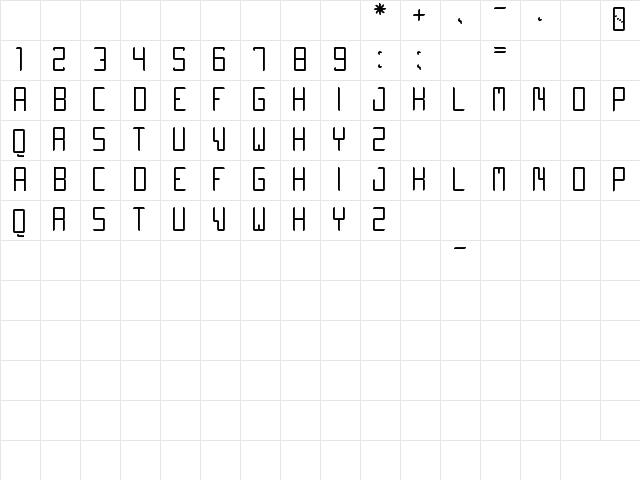
QUIWO LUSE TFB Regular Free Font
QUIWO LUSE TFB Regular
Designer: kaiser zhar khan
Design Context for QUIWO LUSE TFB
QUIWO LUSE TFB is a composed and adaptable typeface that performs quietly and consistently across a wide range of design contexts.